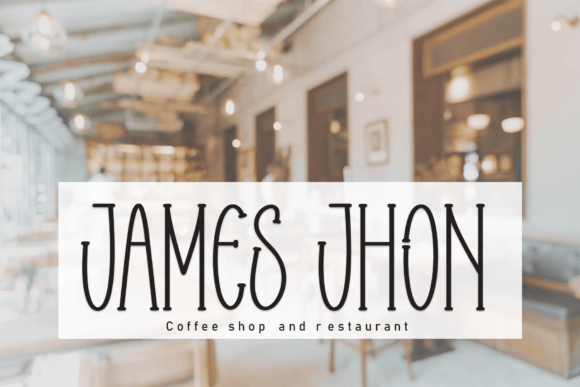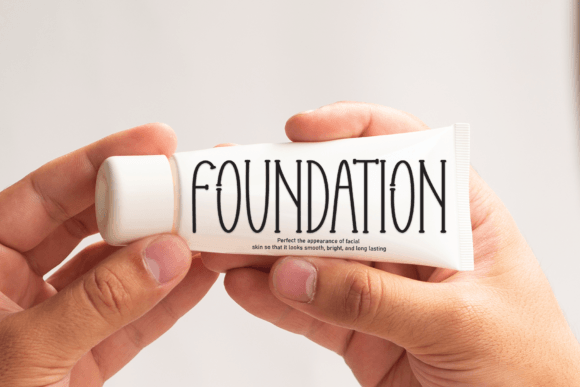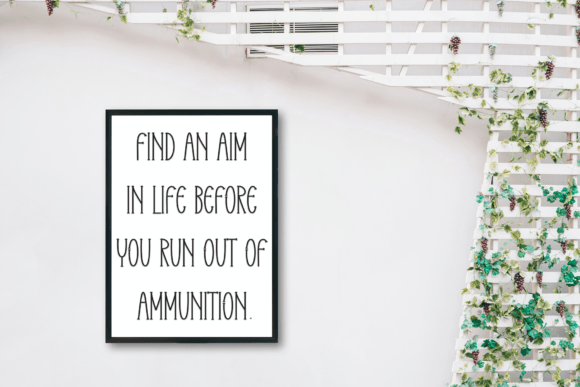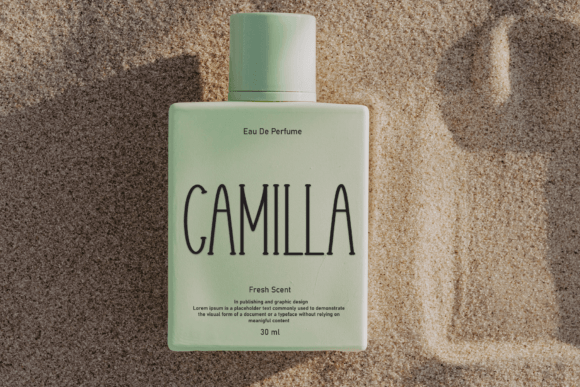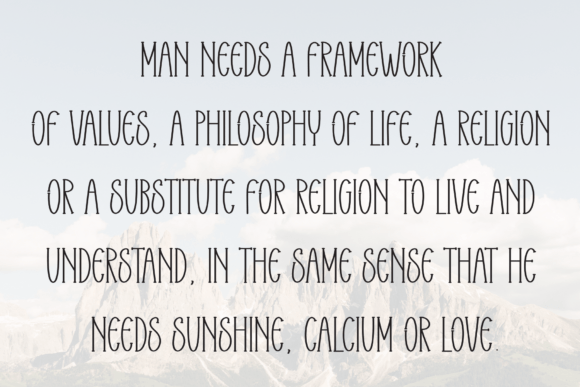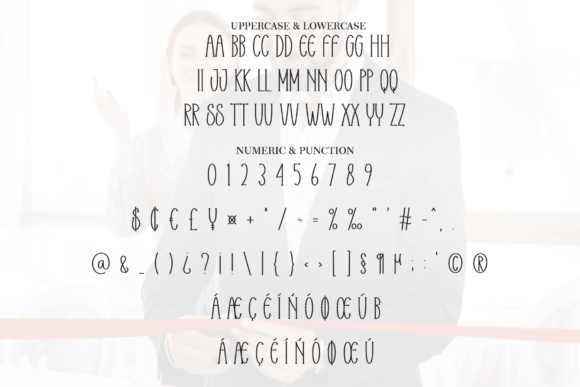
Introduction to Induction Font
Introducing “Induction Font,” a sleek and modern typeface that commands attention with its bold presence.
With its clean lines and geometric forms, Induction Font exudes a sense of contemporary elegance and professionalism Perfect for minimalist branding, tech-inspired designs, and impactful headlines, this font offers a sophisticated and polished look.
Key Features of Induction Font
Why Choose Induction Font?